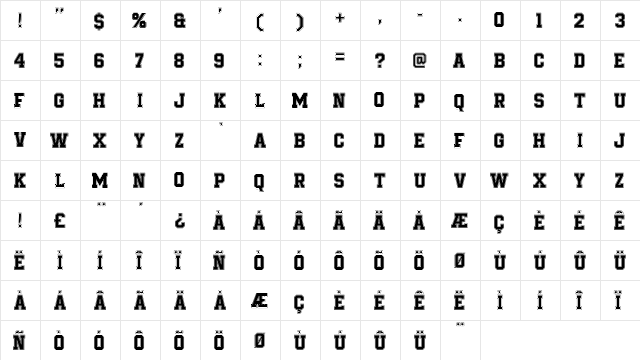
Be True To Your School Regular
| Designer | HENRIavecunK |
Design Context for Be True To Your School Typeface
Be True To Your School is a composed and adaptable typeface that performs quietly and consistently across a wide range of design contexts.